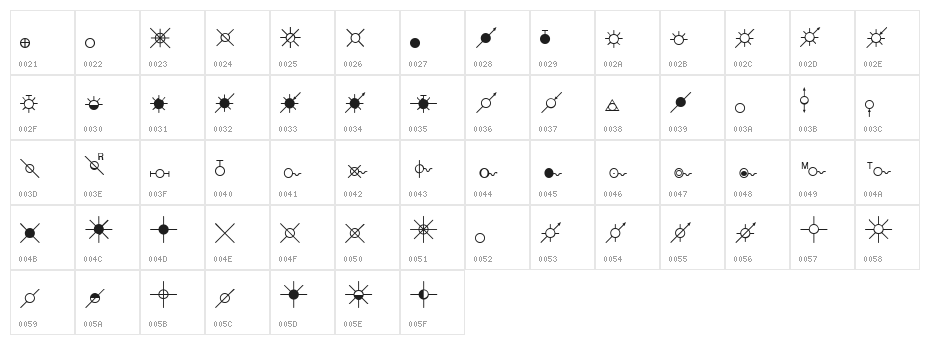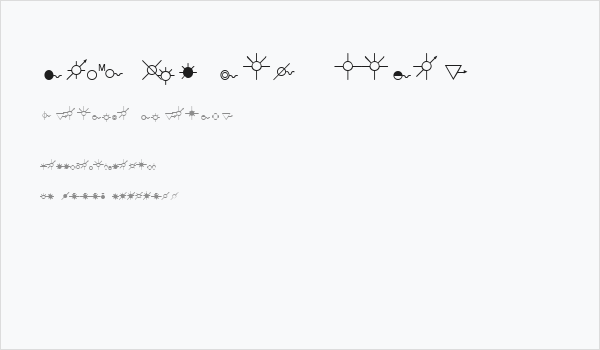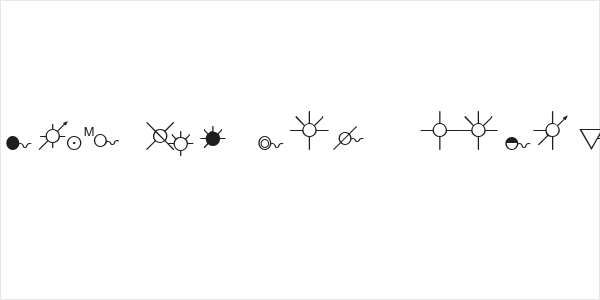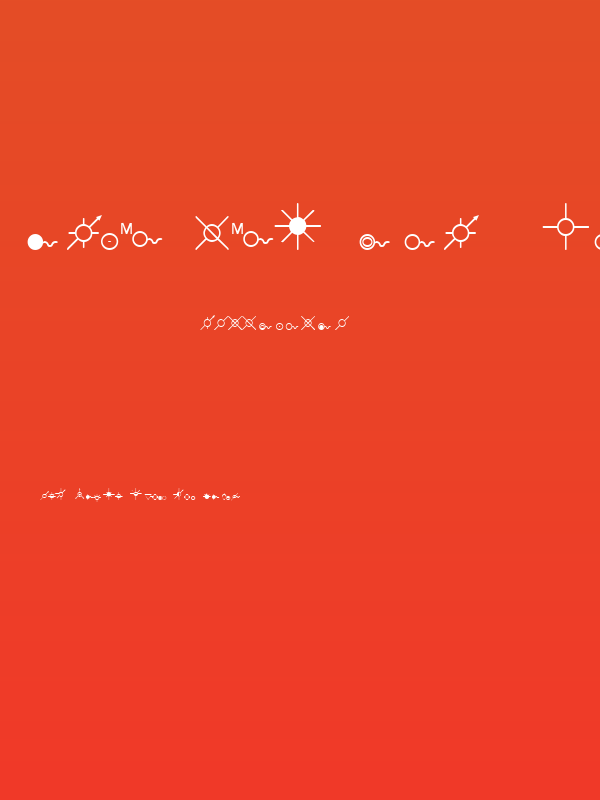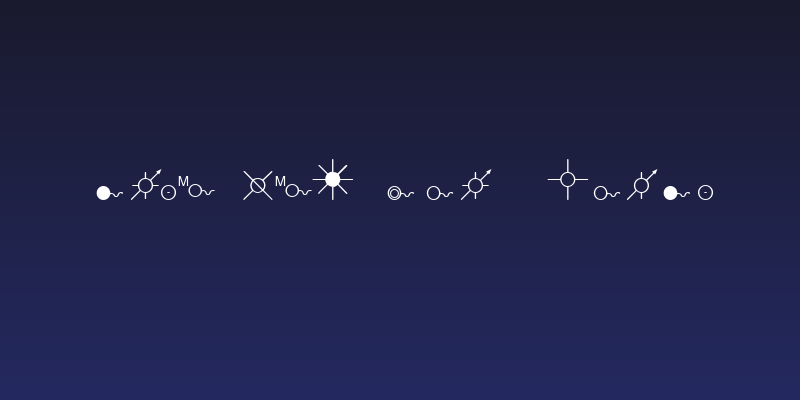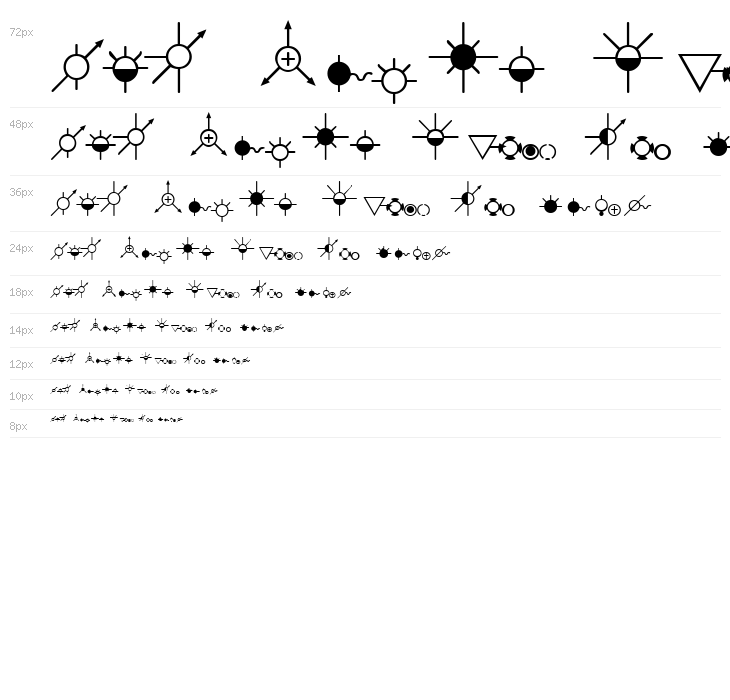
ESRI Oil Gas Water Font
| 整体风格 | Technical, Functional, Schematic |
| 使用场景 | Maps, Diagrams, Technical Schematics |
| 推荐项目 | Geological maps, oil and gas diagrams, water resource schematics, technical documentation, scientific presentations. |